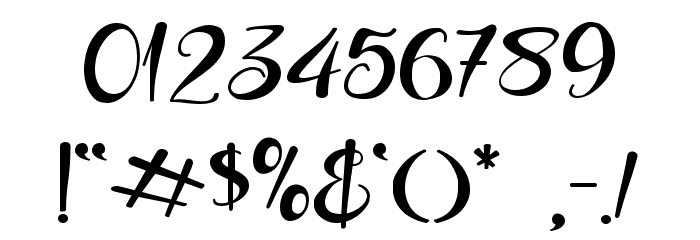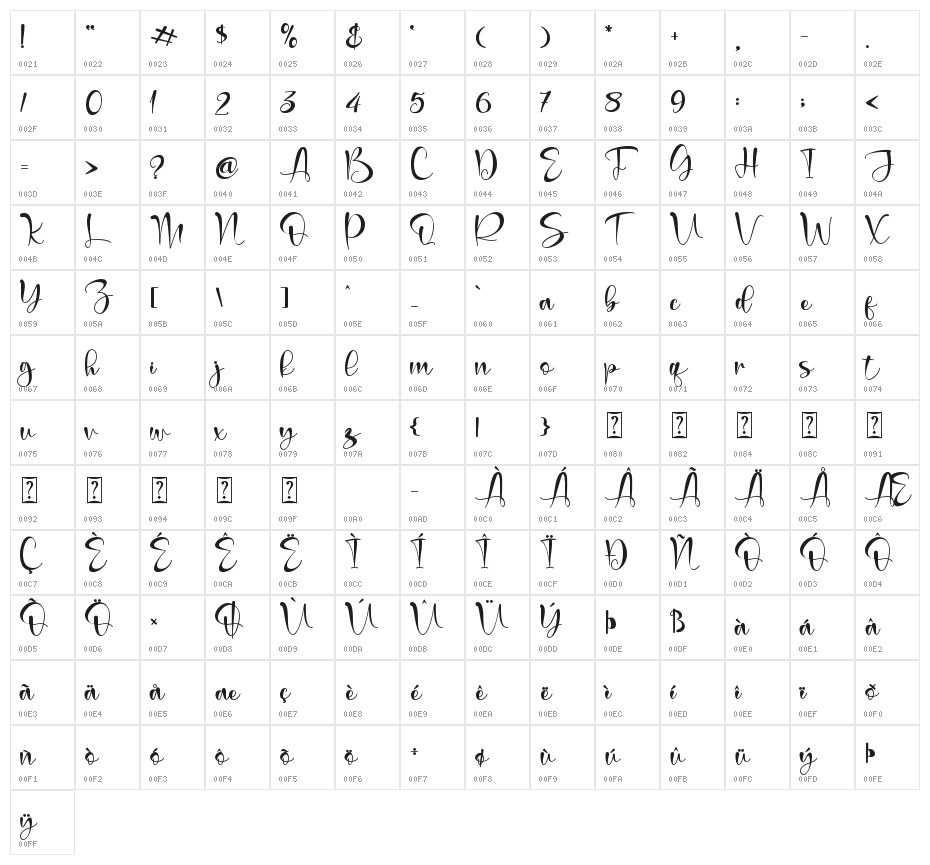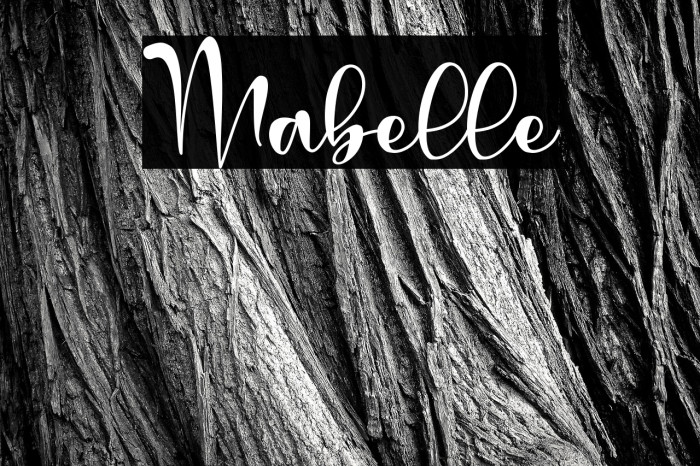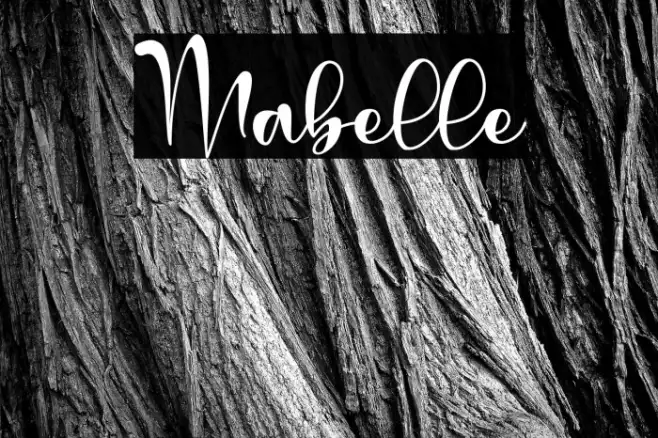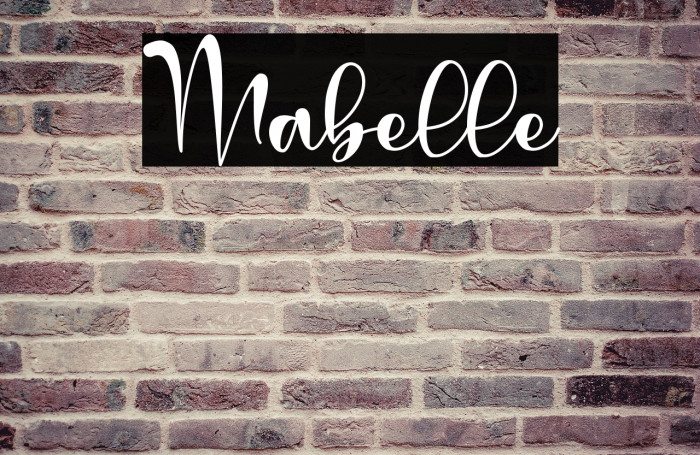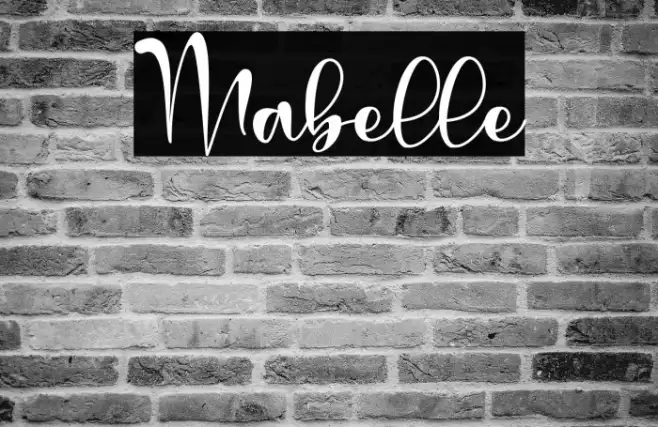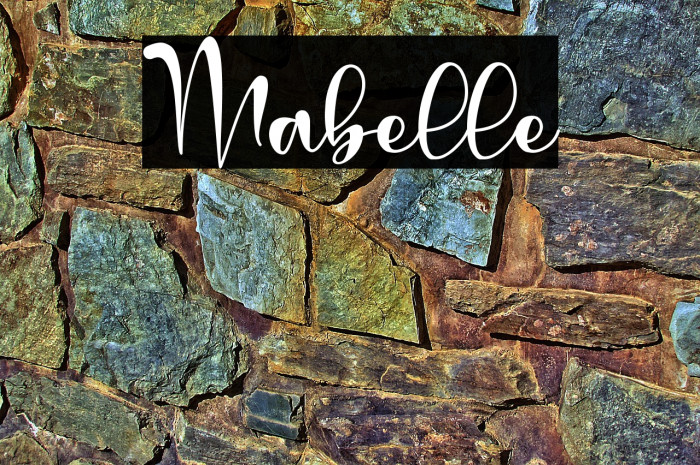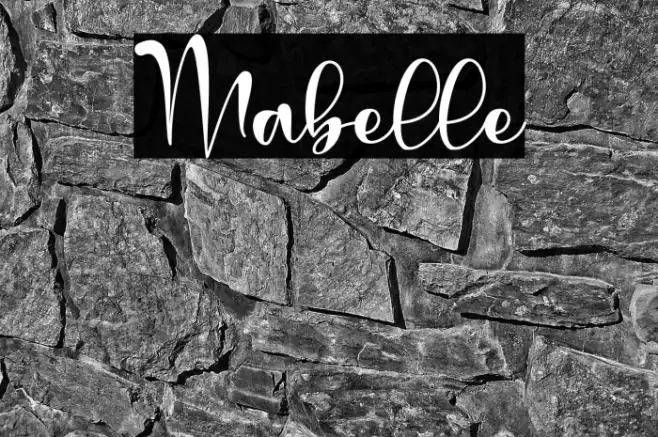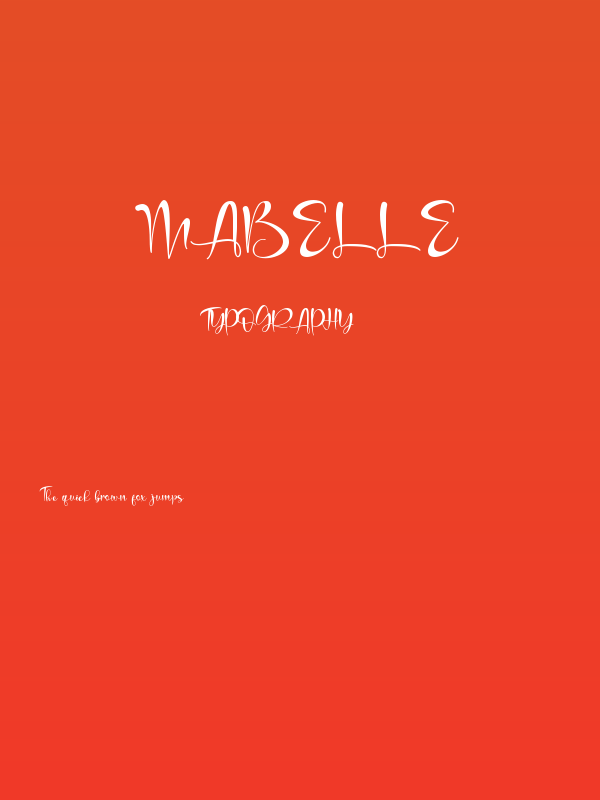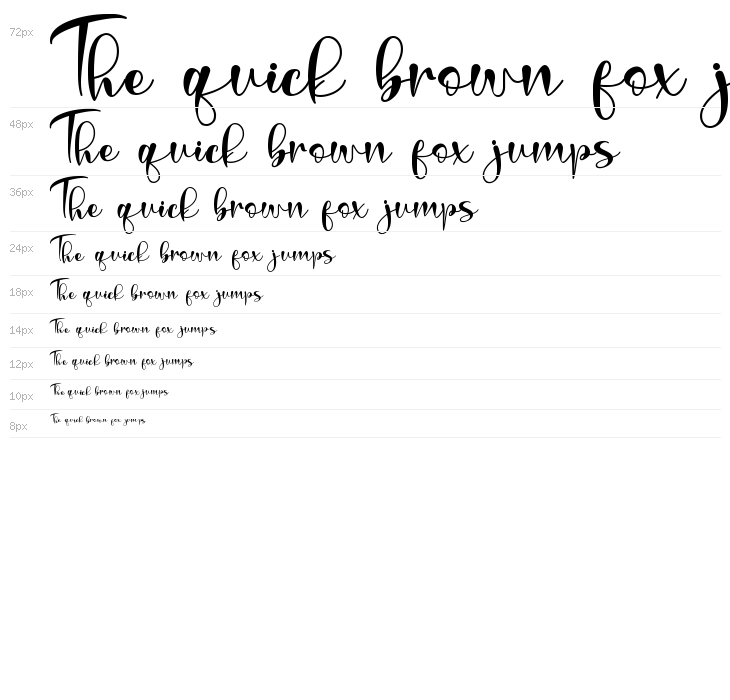
Mabelle Font
Mabelle Description
This font features an elegant and flowing script style, characterized by its smooth, cursive strokes and artistic flair. The uppercase letters are bold and expressive, with distinctive loops and swirls that add a touch of sophistication. The lowercase letters maintain a consistent flow, enhancing readability while retaining a decorative appeal. Numbers and special characters are crafted with the same attention to detail, ensuring a cohesive look across all elements. The overall design is both stylish and versatile, making it suitable for a variety of creative applications.
| Proposed Projects | Ideal for wedding invitations, branding, greeting cards, and elegant packaging designs. |